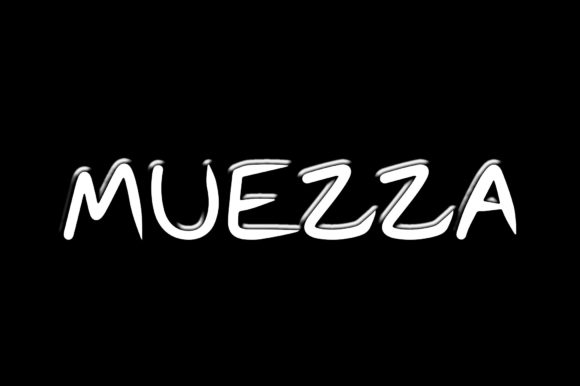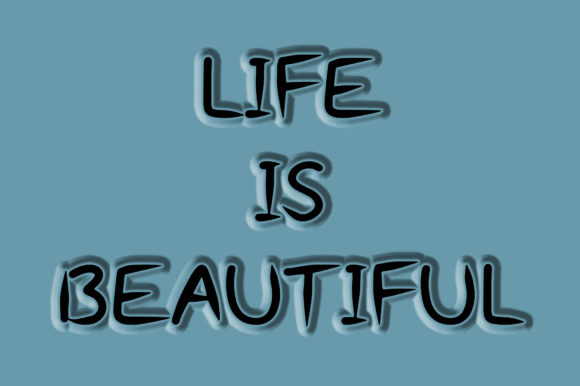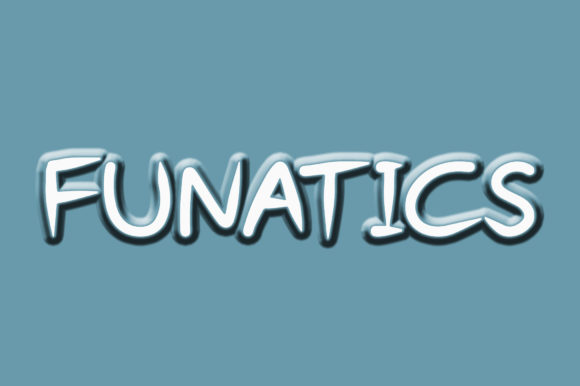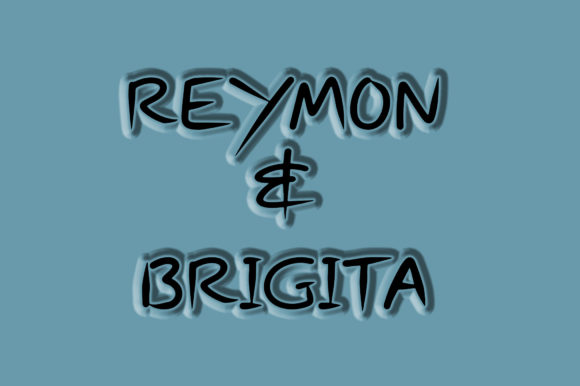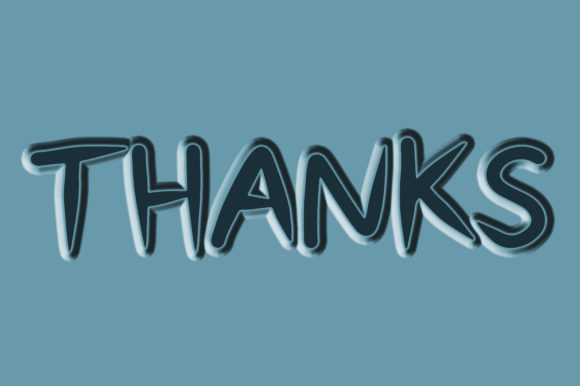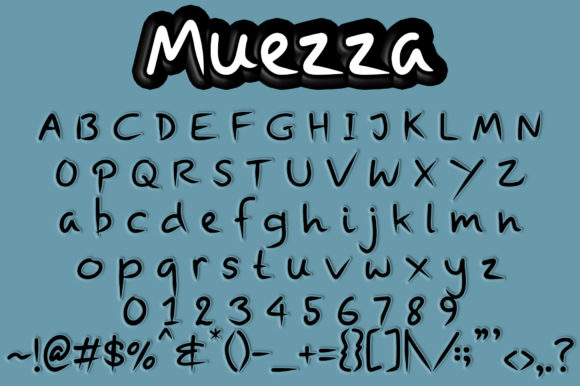
Muezza Font
About Muezza Font
Muezza is a cool and elegant handwritten font. Use it for wedding invitations, birthday cards, apparel designs, product packaging, and so much more!